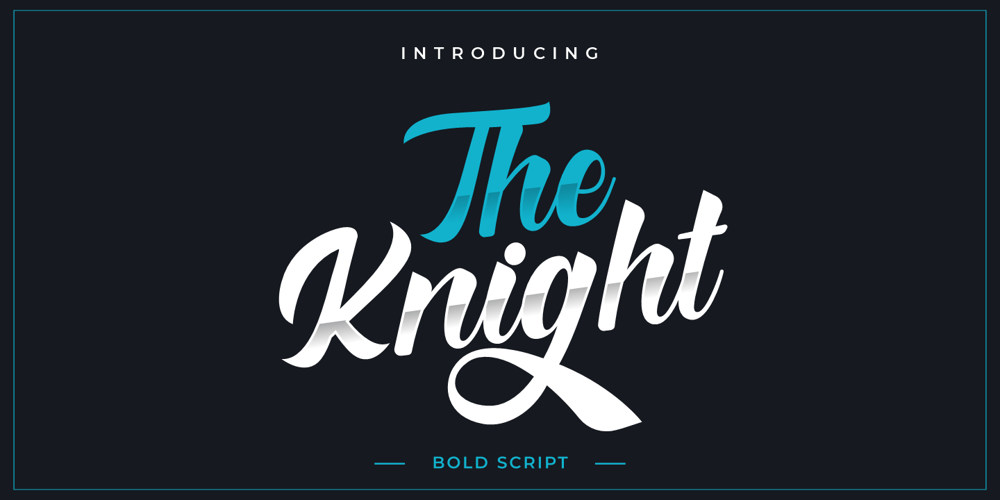
The Knight Font Family was designed by Putra Novembria Candra Kusuma and published by Putracetol. The Knight contains 1 styles and family package options. The Knight is a bold script font. This font is inspired by magazine titles and posters as well as streetwear lettering styles. This font has bold and modern characteristics, so it’s also perfect for logos.Also ideal for logos, badge, label, apparel, club, event, handwritten quotes, product packaging, header, poster, merchandise, social media & greeting cards.The Knight come with opentype feature like a lot of alternates. Its help you to make beautiful lettering.This font is also support multi language (áâàäåãæçéêèëíîìïıðñóôòöõøœšúûùüýÿžþÁÂÀÄÅÃÆÇÉÊÈËÍÎÌÏÐÑÓÔÒÖÕØŒŠÚÛÙÜÝŸŽÞ)